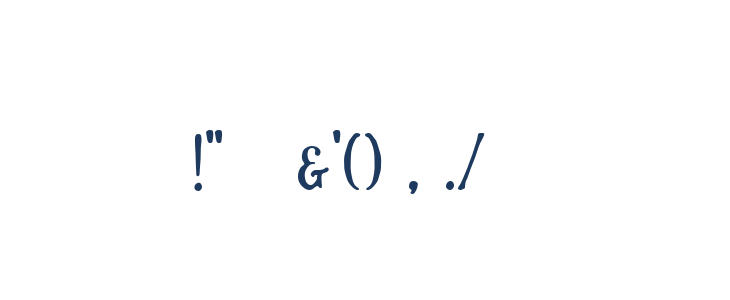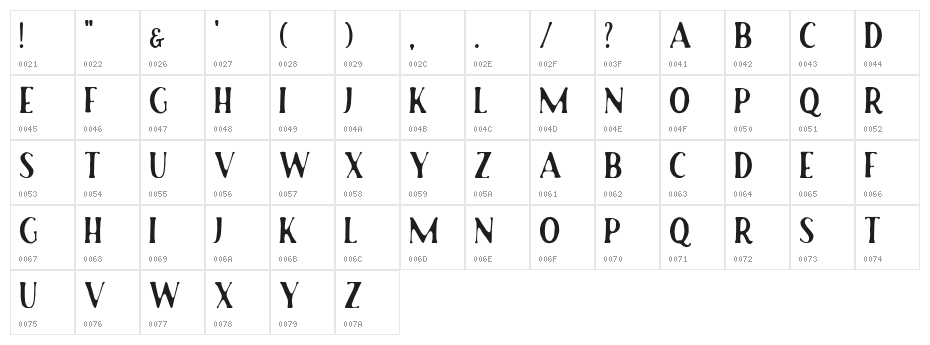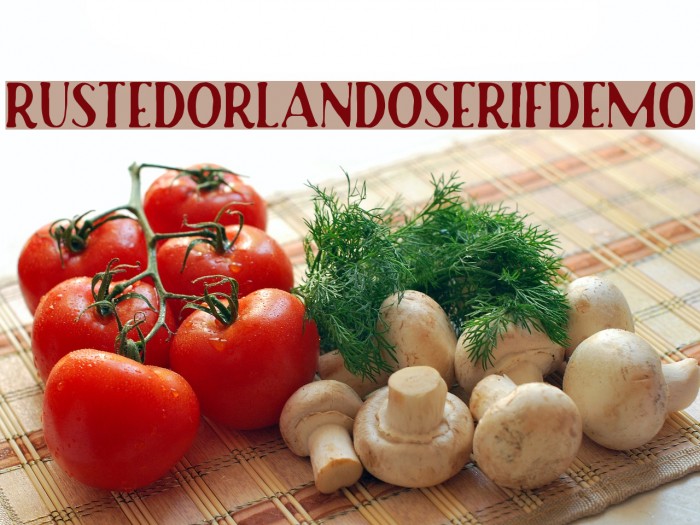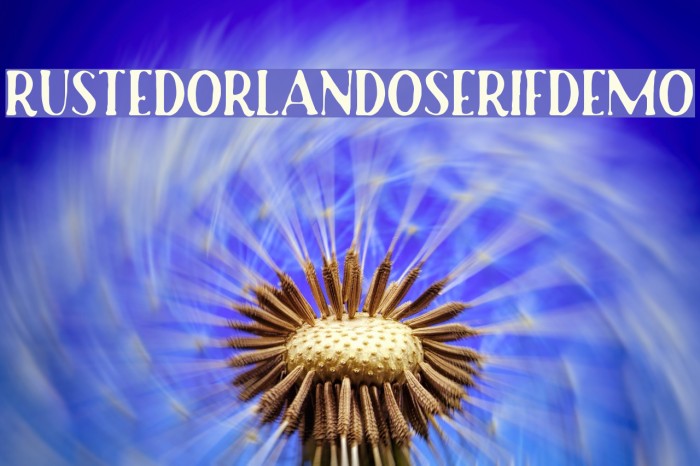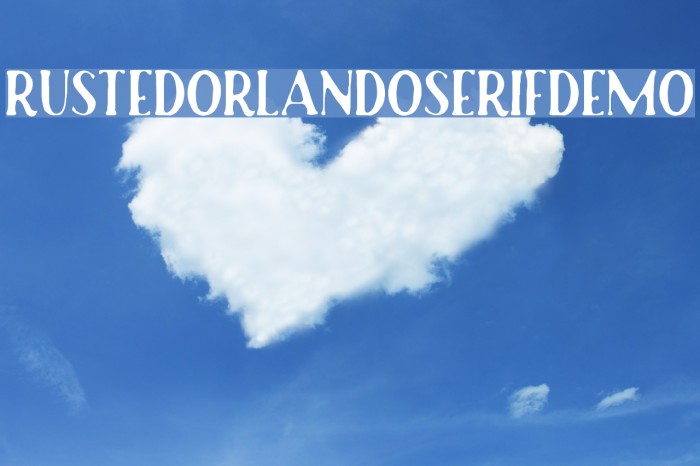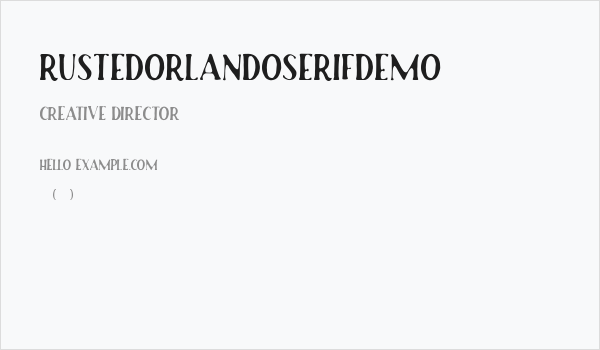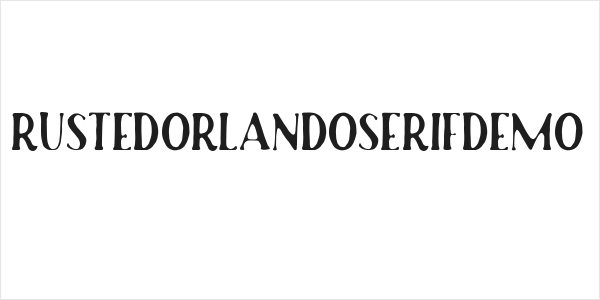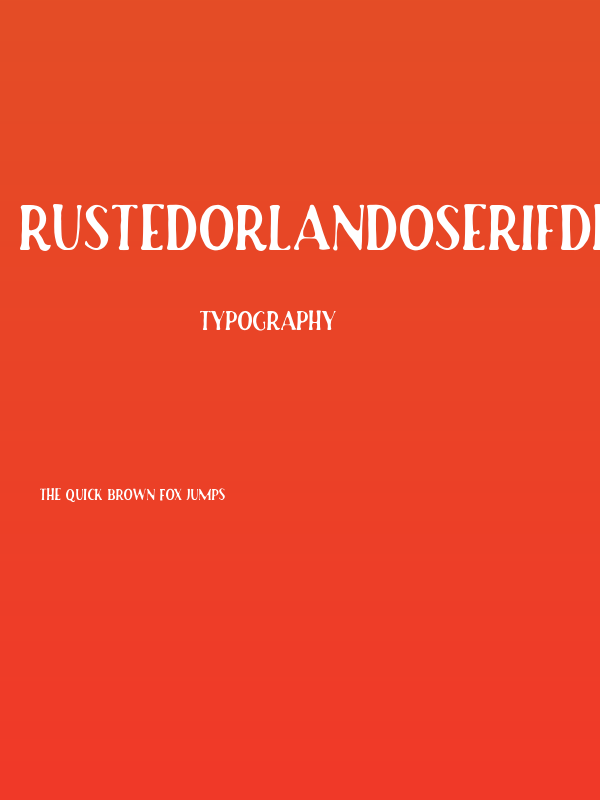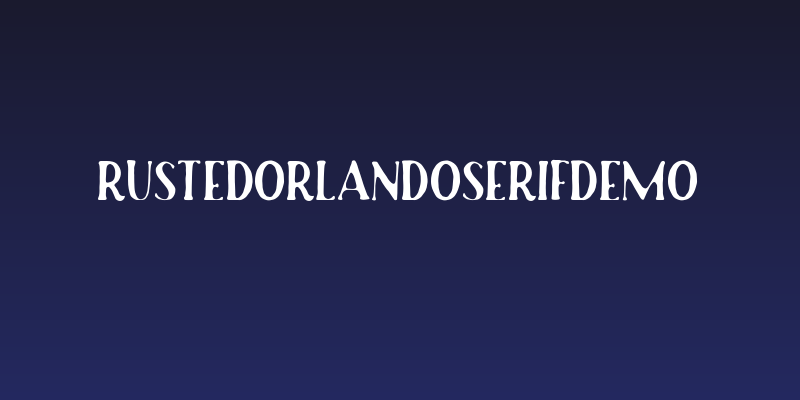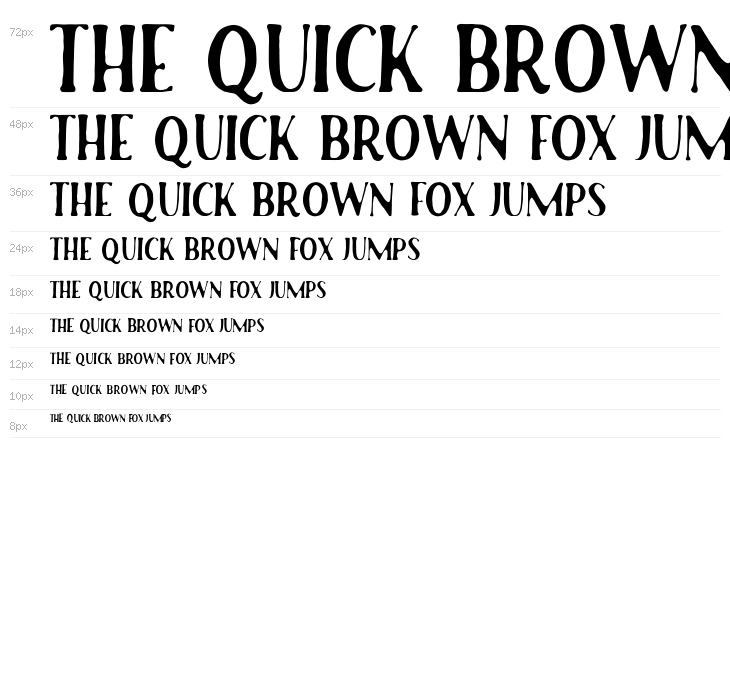
RustedOrlandoSerifDemo Font
RustedOrlandoSerifDemo Description
This font features a distinctive serif style with a vintage flair, characterized by its bold and slightly irregular strokes that give it a hand-crafted appearance. The uppercase letters are prominent and commanding, with unique curves and angles that add a touch of elegance and sophistication. The lowercase letters maintain a consistent style, complementing the uppercase with their own subtle variations. The numerals are clear and legible, while the special characters retain the font's overall aesthetic. This font's design is both artistic and functional, making it suitable for a variety of creative applications.
| Proposed Projects | Ideal for branding, packaging, posters, and invitations where a vintage or artistic touch is desired. |